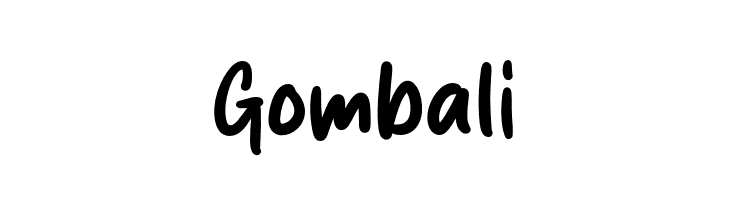
( Fonts by Vztype Studio )
A lively and flowing script font with smooth, cursive strokes.
( Fonts by Andi Moz )
A playful, whimsical font with tall, narrow letters and decorative loops.
( Fonts by Andi Moz )
A decorative script font with elegant, flowing strokes and artistic loops.
( Fonts by Scratchones )
A playful, handwritten font with tall, narrow letters and rounded edges.
( Fonts by Logan Benedict )
A bold, playful handwritten font with thick, rounded strokes.
( Fonts by Timur Type )
A playful, handwritten font with rounded, consistent strokes and a casual vibe.
( Fonts by Graphix Line Studio )
A casual, flowing handwritten font with smooth, continuous strokes.
A graceful and elegant handwritten script font with flowing curves.
A playful and artistic handwritten font with dynamic, flowing letterforms.
An elegant and flowing script font with modern swashes and flourishes.